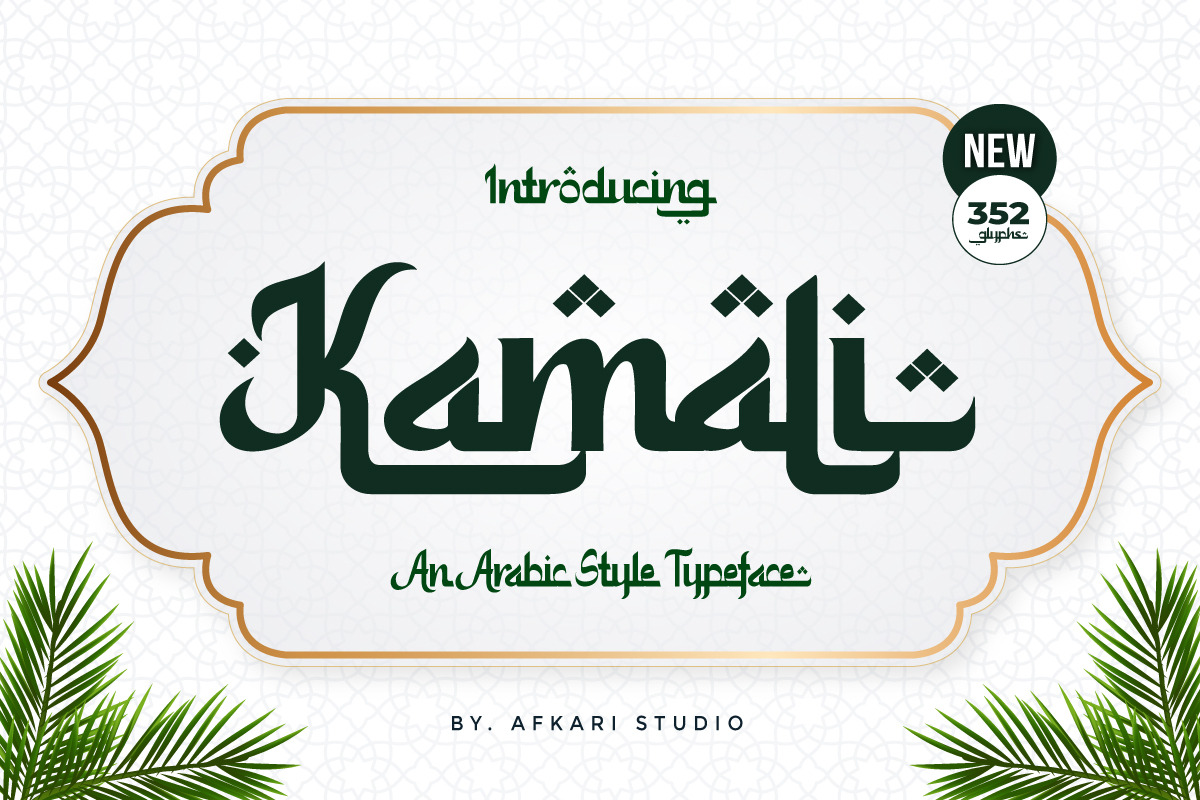
Kamali - An Arabic Style Typeface
Introducing Kamali, an enchanting Arabic-style typeface that captures the spirit of Ramadan and Islamic design. Immerse your designs in the rich cultural heritage of Arabic calligraphy with this exceptional font. Kamali is carefully crafted to impart an authentic Arabic essence to every text, making it the perfect choice for graphic design projects inspired by Islamic or Arabic aesthetics.
Designed with Latin characters, Kamali ensures global readability, allowing your messages to resonate across international audiences without the need for familiarity with Arabic script. Whether you're working on branding, product packaging, quotes, flyers, posters, logotypes, apparel, T-shirts, hoodies, book covers, movie titles, advertising, or more, Kamali effortlessly elevates the visual appeal of your creations.
- Uppercase, lowercase, numbers, and punctuation
- Special alternates and ligatures for added visual richness
- Multilingual support, accommodating characters like ä, ö, ü, Ä, Ö, Ü, ß, ¿, and ¡
Kamali is not just a font; it's a versatile design tool that seamlessly blends tradition and modernity. Elevate your creative projects with Kamali's unique charm, creating visually stunning results that leave a lasting impression. We hope you relish using our font, confident that it will become an indispensable asset in bringing your artistic visions to life.